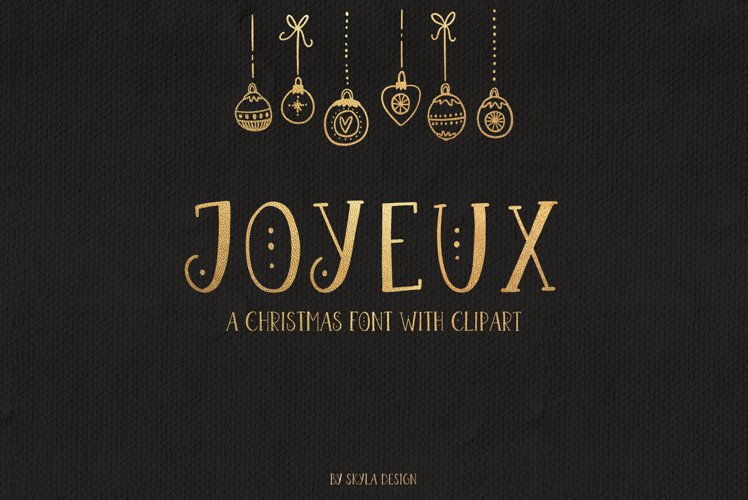
Joyeux Christmas font & Dingbat clipart illustrations
Joyeux is a font family of an all caps font and a dingbat font with 52 cute clipart illustrations which will make crafting so much fun.